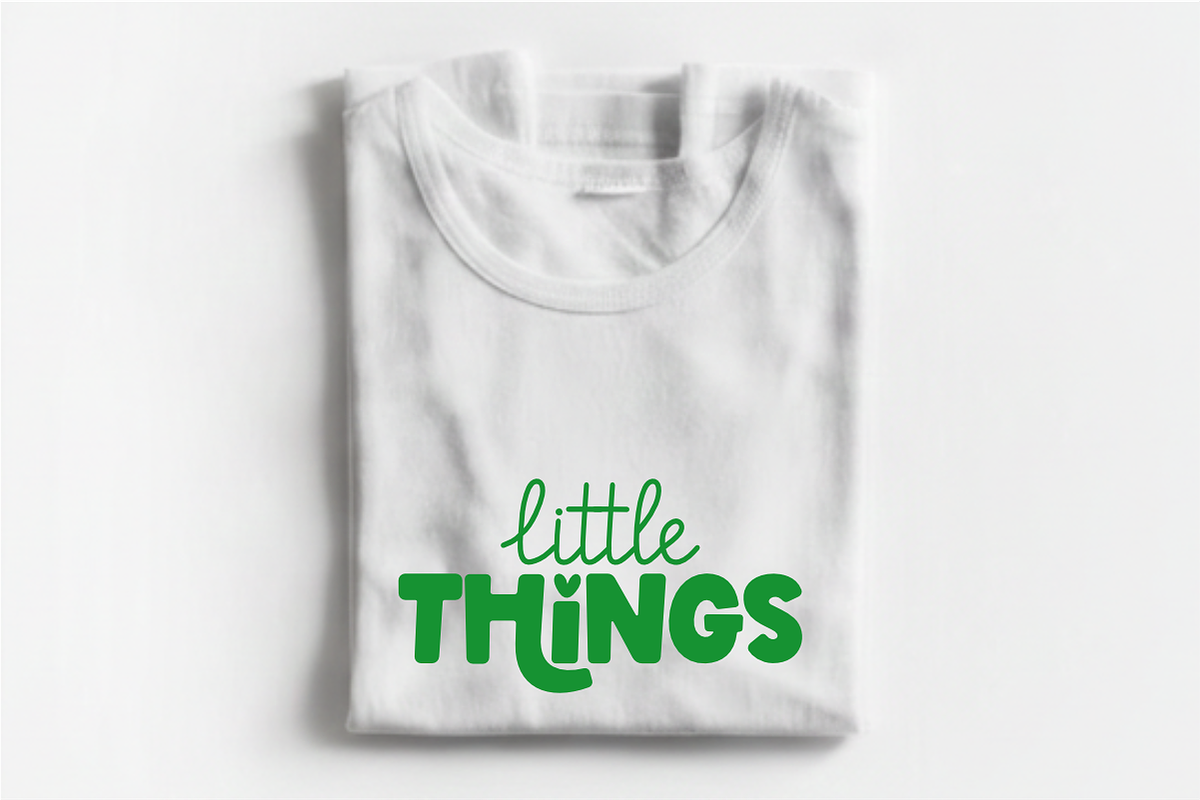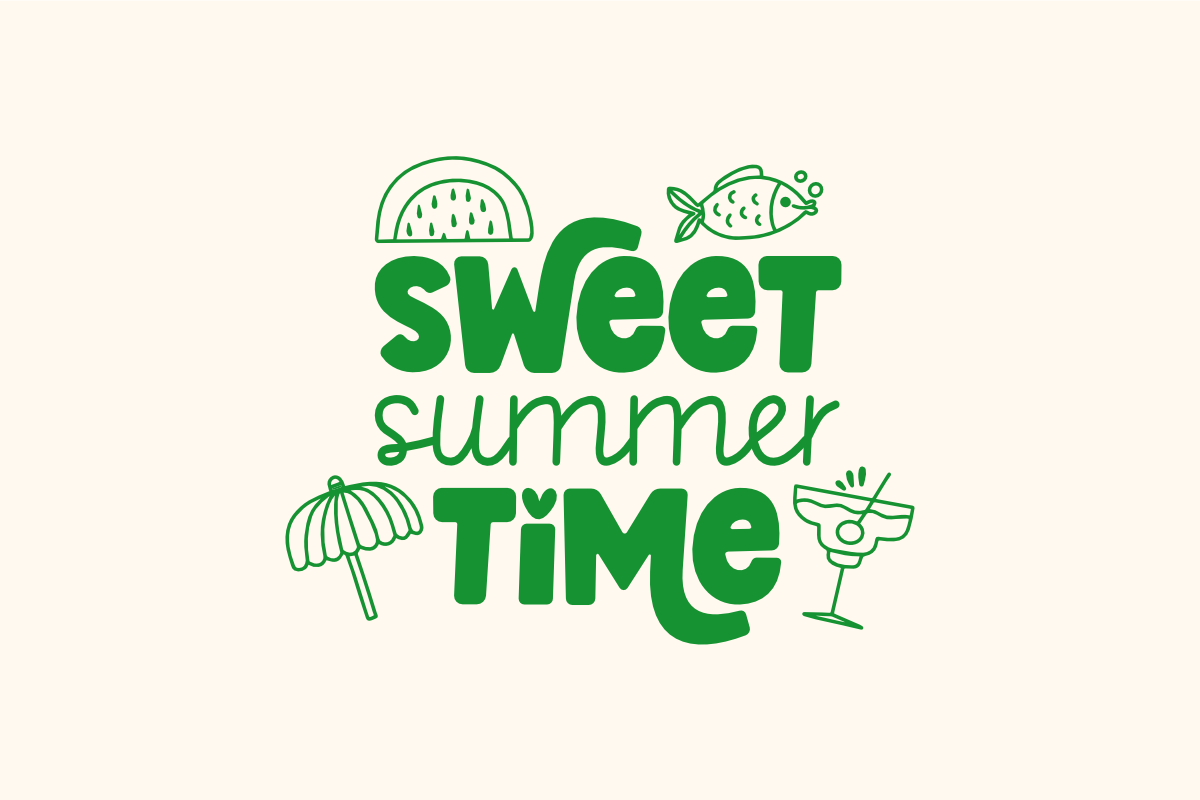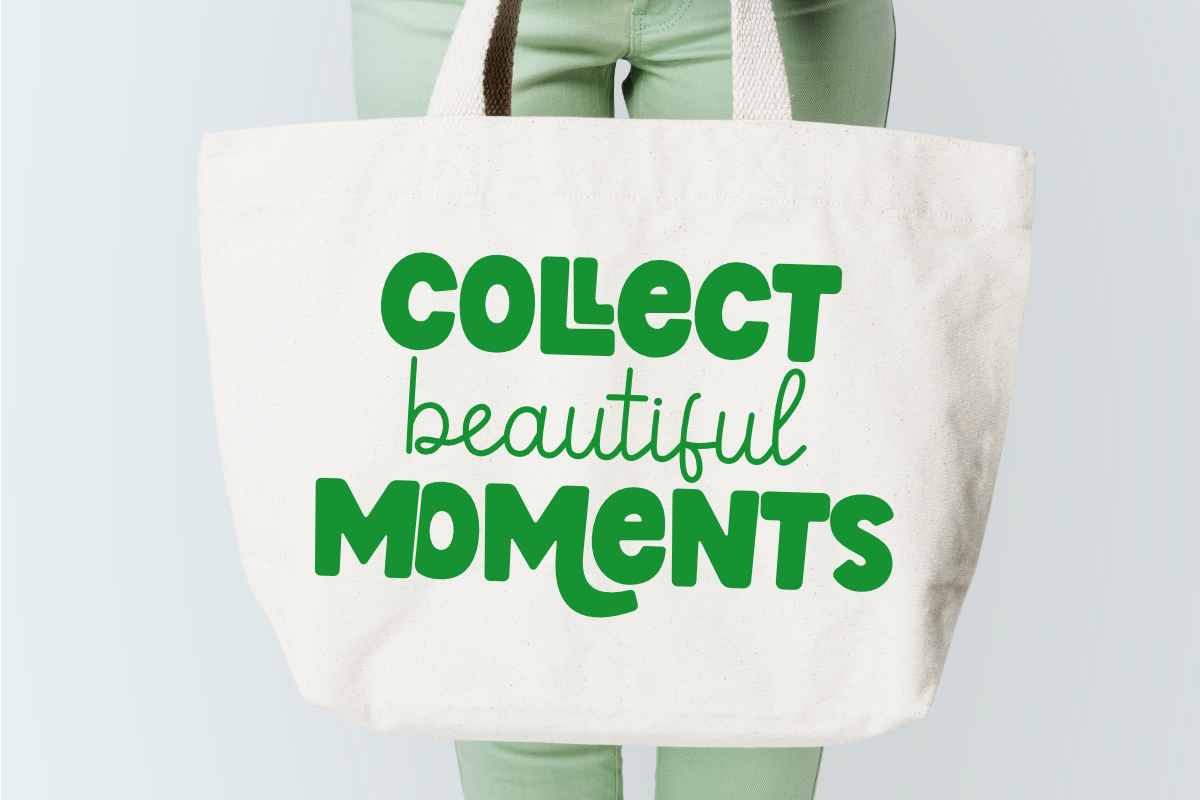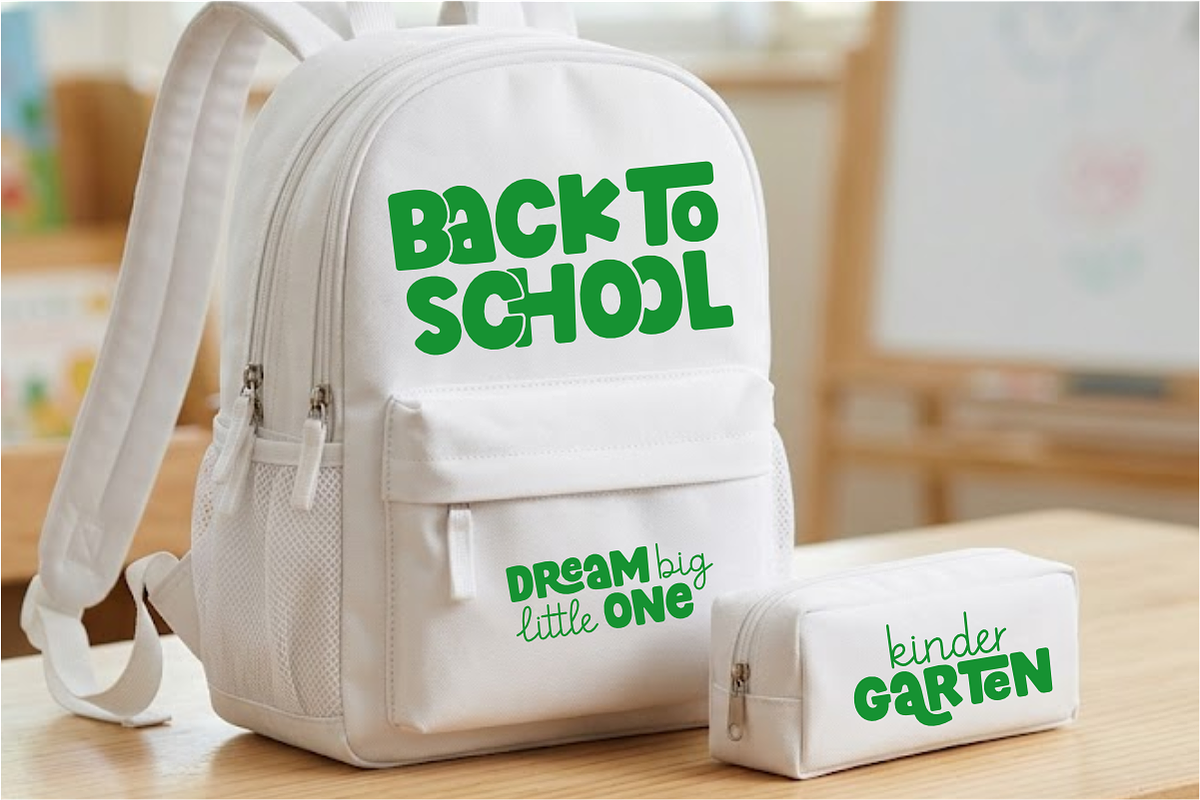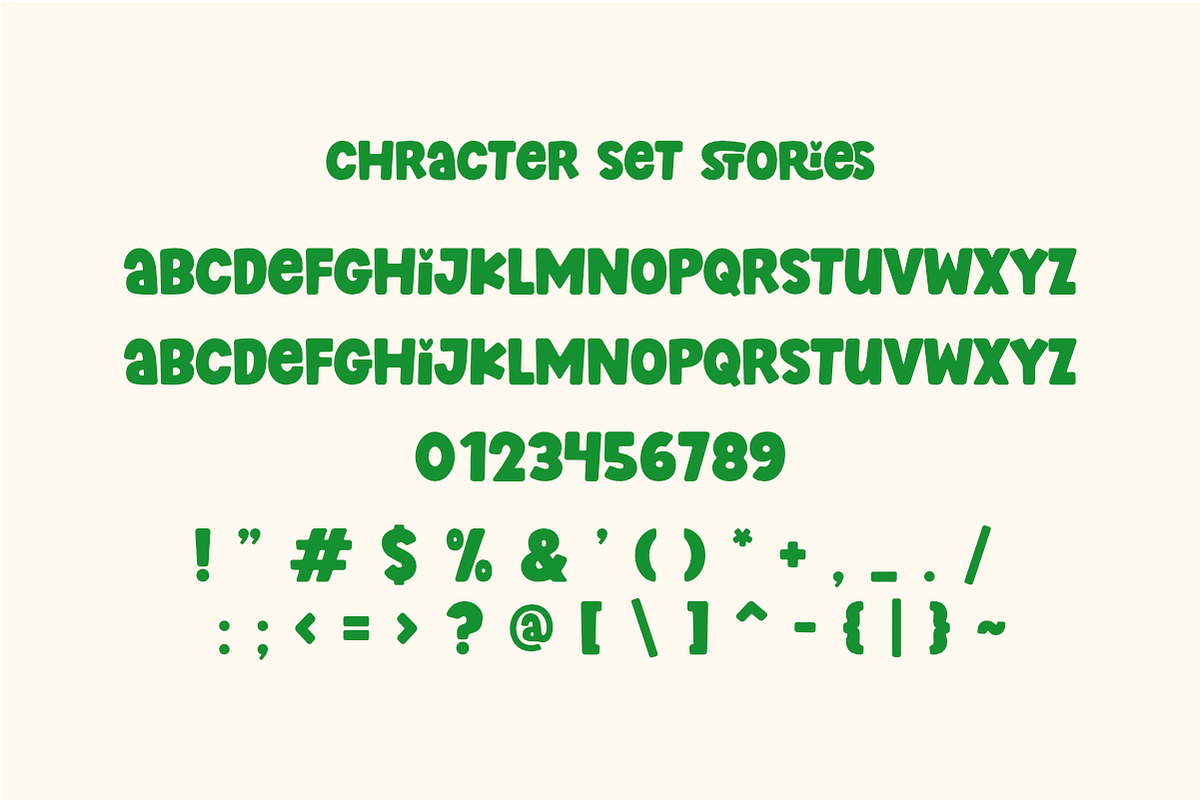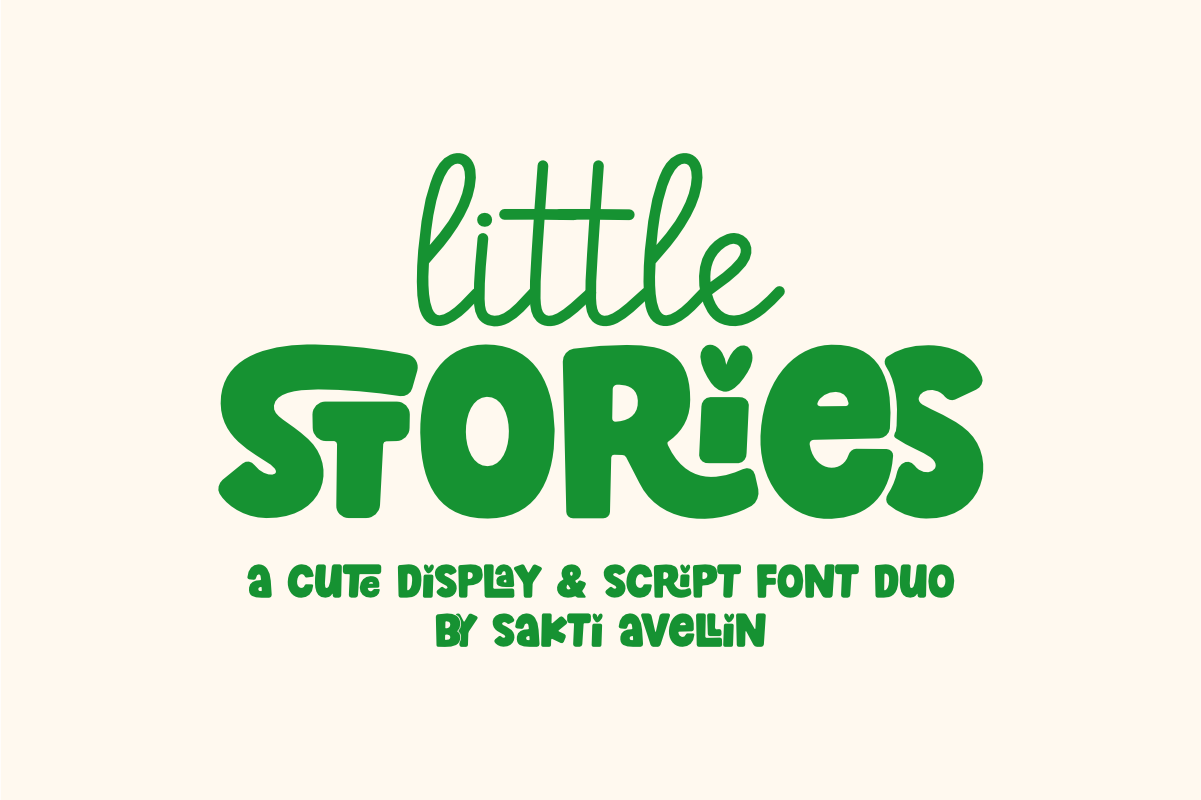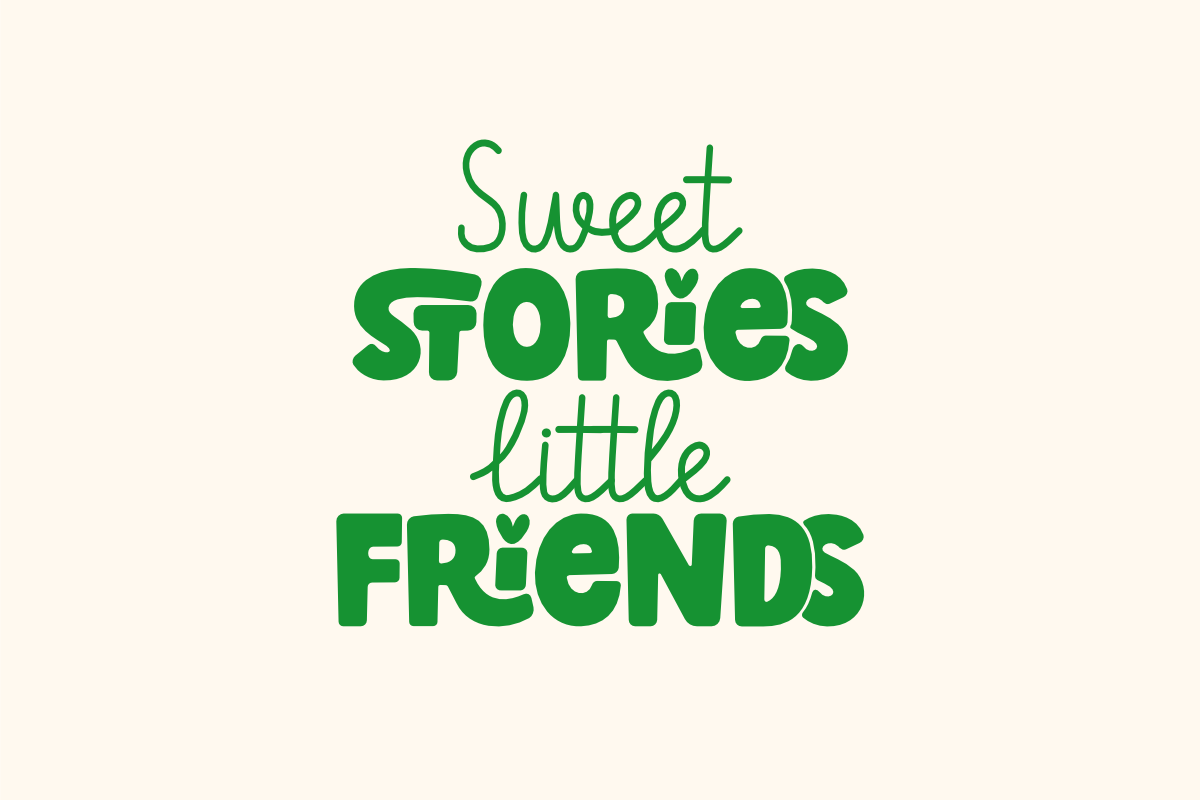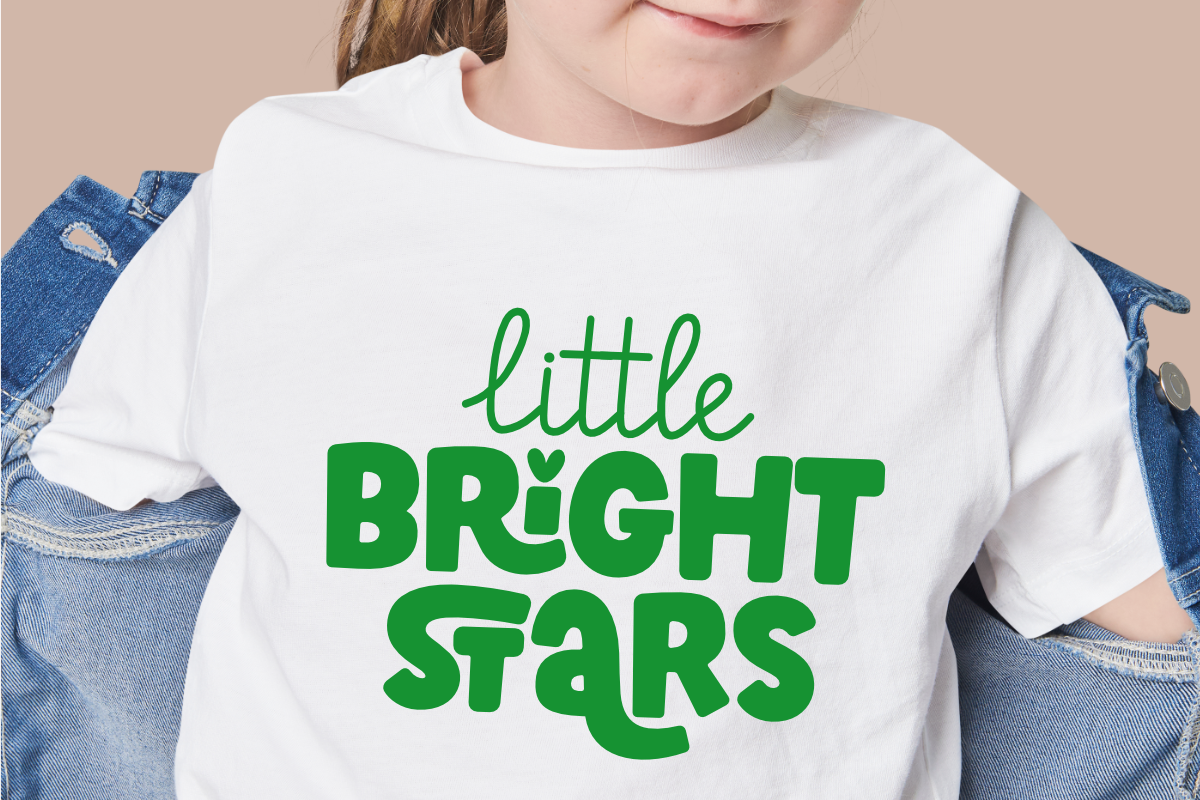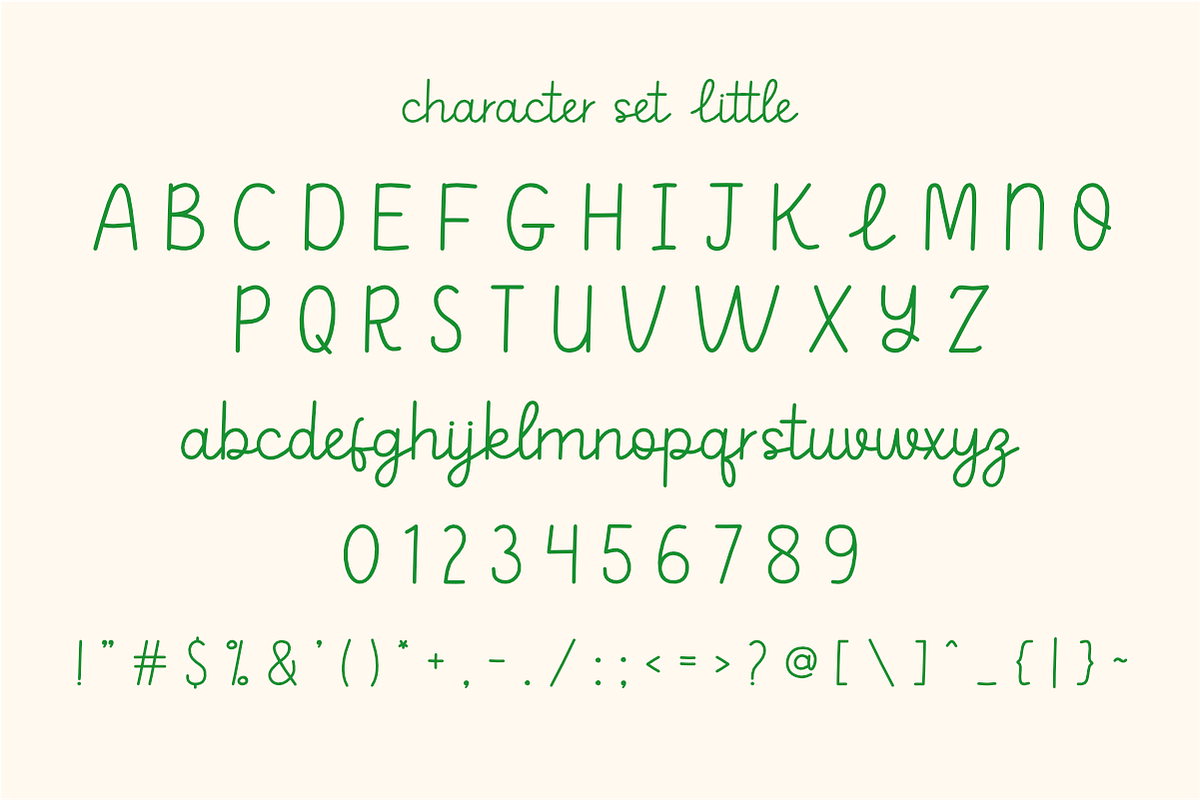
Little Stories - Display Font Duo
Little Stories is a charming and versatile cute display & script font duo designed to bring a playful and storytelling energy to your creative projects. This delightful pairing features a bold, bubbly display typeface for "STORIES" and a smooth, flowing handwritten script for "little," making it an ideal choice for children's branding, storybook covers, colorful stickers, school projects, and cheerful social media graphics. Its balanced and organic aesthetic ensures your designs feel personal, warm, and full of imagination. Whether you are creating toy packaging, nursery decor, or fun party invitations, Little Stories adds a lovely, handcrafted harmony to every design.